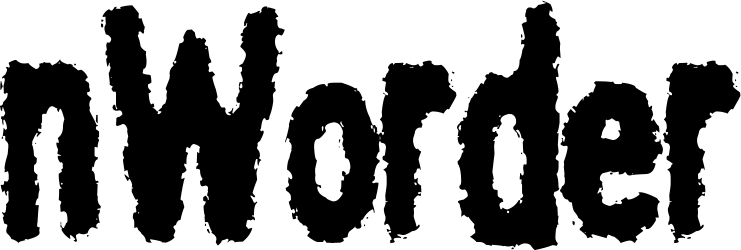
nWorder Font
Nworder Font
The nWorder font is one of the friendly and spooky styles with all the necessary characters, and you can use it to design a Halloween flyer.
Also, considering that this vintage and cloud-shaped font can increase your efficiency in many children’s designs you can attract more audiences. We recommend putting this destroyed font in your download list and taking this chance not to start a design from scratch.